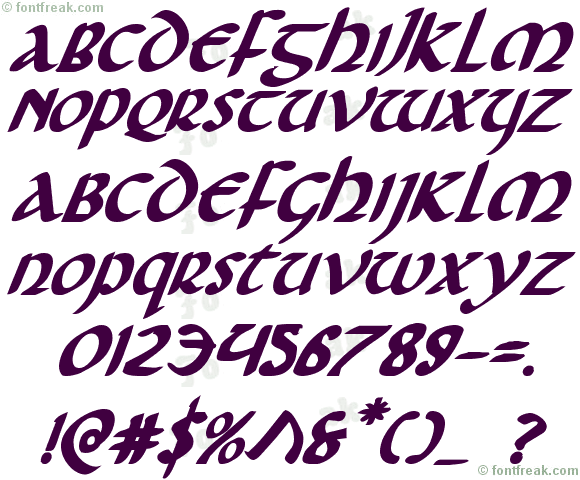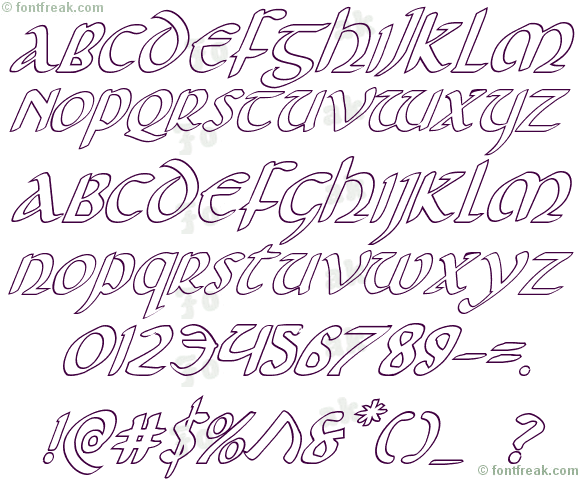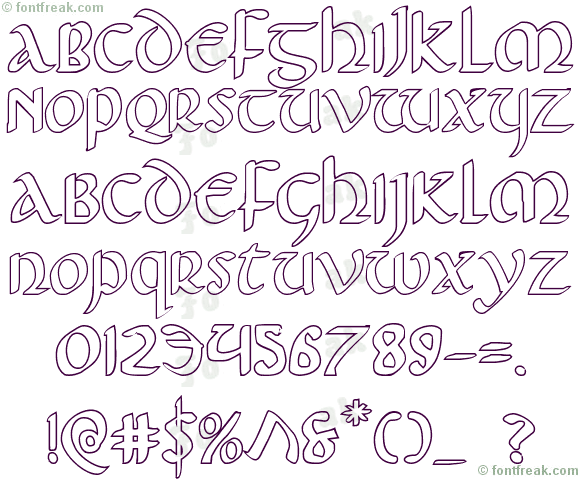
Foucault Expanded
The Foucault Expanded font, designed by Daniel Zadorozny in 2014, is a striking display typeface that falls under the decorative category. This font is characterized by its unique blend of bold and italic styles, showcasing a condensed yet expansive appearance. The strokes are bold and pronounced, offering a strong visual impact, while the leftalic and rotalic variations introduce a playful dynamism. The font’s outline adds an extra layer of depth, making it suitable for varied applications where attention to detail is paramount.
Foucault Expanded is an excellent choice for a range of design projects. Its distinctive style makes it ideal for movie posters, where it can capture the viewer's attention and convey a sense of excitement. Additionally, it works beautifully for restaurant menus, giving an artistic flair that enhances the dining experience. Graphic designers may find it particularly useful for branding materials, as the font can convey a unique identity. It can also be employed in wedding invitations, adding an elegant touch that reflects personal style.
The primary audience for the Foucault Expanded font includes graphic designers, small business owners, and content creators who seek to make a bold statement with their typography. Its freeware license makes it accessible, allowing users to incorporate this striking typeface into their projects without financial concerns.
What sets the Foucault Expanded font apart is its ability to blend artistic flair with functional design. The combination of bold strokes and playful outlines creates a memorable visual identity that can elevate any design project. With its versatility and unique aesthetic, the Foucault Expanded font free download is a valuable addition to any designer's toolkit.